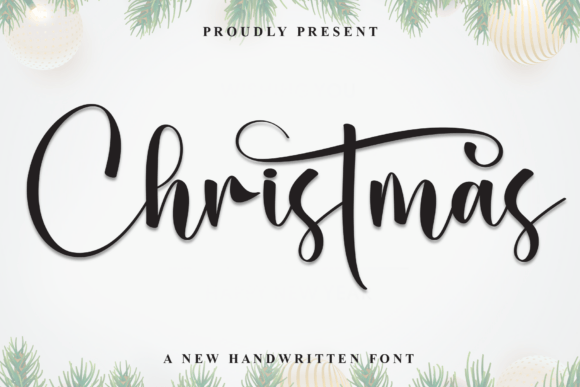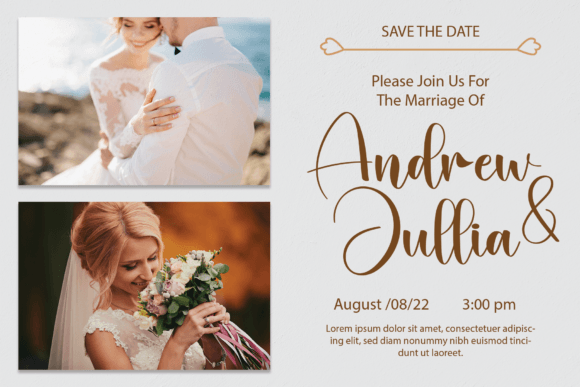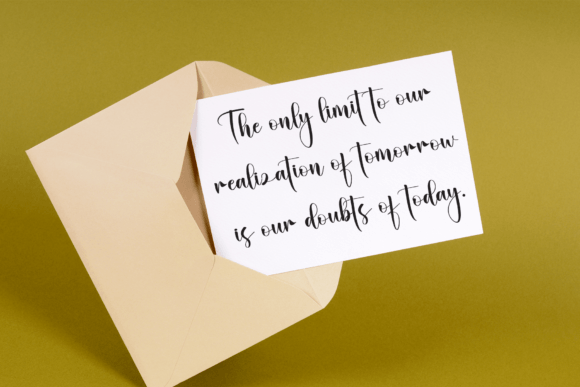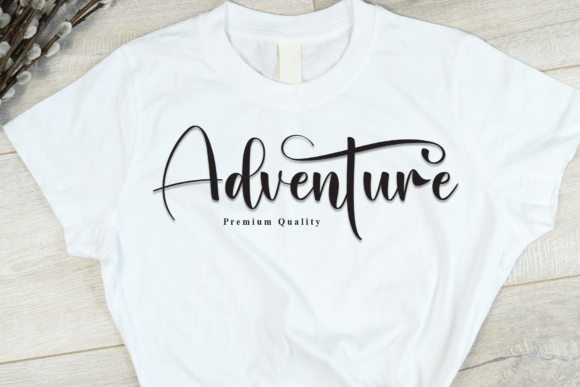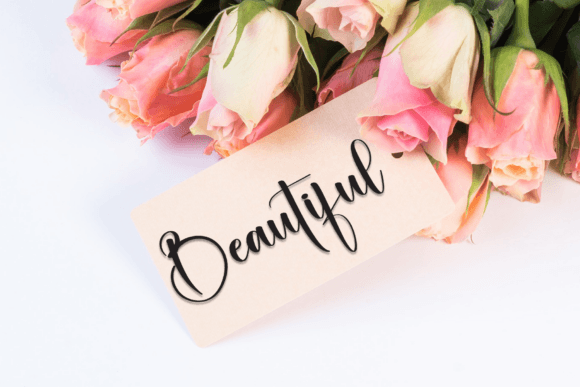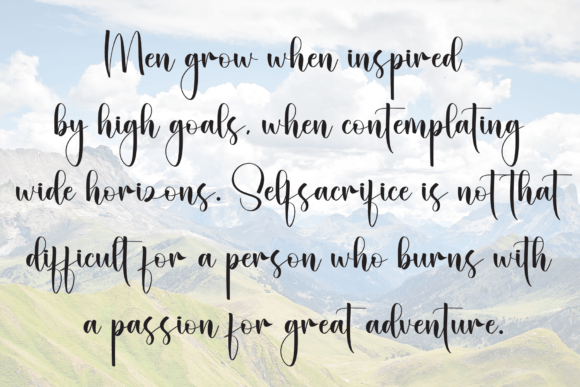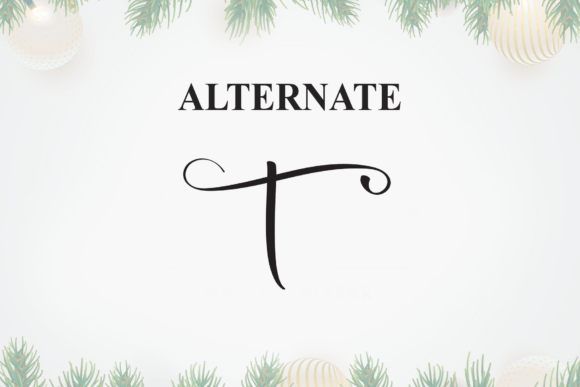
Getting into the Holiday Spirit with the Christmas Font
There’s something magical about the holiday season that sparks creativity and inspires us to get crafty. As you sit by the fireplace, sipping hot cocoa and brainstorming ideas, you stumble upon the perfect font to capture the essence of Christmas. It’s elegant, refined, and exudes a sense of joy and wonder.
This is where the Christmas Font comes in – a delicate and elegant handwritten font that’s sure to make your designs shine. With its well-balanced letters and distinct style, it’s the perfect addition to any holiday project. Whether you’re creating invitations, greeting cards, or social media graphics, this font is sure to add a touch of magic to your work.
As a designer, you know how valuable it is to have a versatile font that can adapt to any project. The Christmas Font is that and more – a masterpiece that will elevate your designs and leave a lasting impression on your audience.
Key Features of Christmas Font
- Unique Characteristics: Christmas Font features a unique blend of traditional and modern design elements, including intricate ornaments, festive patterns, and elegant typography.
- Font Styles: The font family includes a range of styles, from bold and playful to elegant and sophisticated, making it suitable for a variety of design applications.
Christmas Font Review
Overall, I’d say the Christmas Font is a decent addition to any holiday-themed design project ✨. The font’s playful and whimsical feel is sure to bring some festive cheer to your designs.
The font includes a wide range of characters, from uppercase and lowercase letters to numbers, punctuation, and special characters ✨. This makes it easy to use in a variety of contexts, from headings and titles to body text and captions.
- The font’s unique and festive design makes it perfect for holiday-themed projects ✨.
- The wide range of characters makes it easy to use in a variety of contexts.
- The font is highly customizable, with options for color, size, and style.
- The font may not be suitable for formal or professional projects, as it has a somewhat playful and childish feel ⚠️.
- The font may not be as legible at very small or very large sizes ⚠️.
In terms of overall impression, I’d say the Christmas Font is a fun and festive addition to any holiday-themed design project ✨. While it may have some limitations, it’s sure to bring some holiday cheer to your designs.
Christmas Font: A Practical Application Guide
Use Christmas Font to create festive invitations, greeting cards, or social media graphics.
Use Christmas Font to create custom holiday graphics, logos, or illustrations.
Use Christmas Font to create festive presentations, reports, or documents.
Use Christmas Font to add a festive touch to your designs, such as:
- Holiday cards and invitations
- Festive social media graphics
- Custom holiday logos and illustrations
- Festive presentations and reports
Experiment with different font sizes, colors, and styles to create unique and eye-catching designs.
What is the recommended font size for using the Christmas Font?
The recommended font size for using the Christmas Font is between 12pt and 48pt. Using the font at larger sizes can result in a loss of detail and clarity, while using it at smaller sizes may make it difficult to read. We recommend experimenting with different font sizes to find the optimal size for your design.